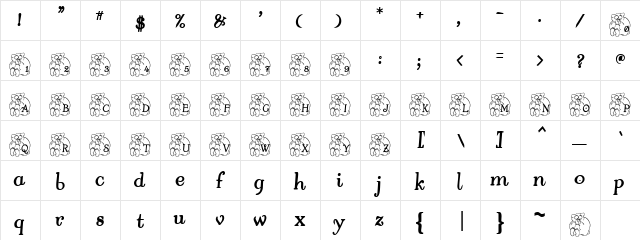
BearlyThinking Regular Font Preview
BearlyThinking Regular
Design Context for BearlyThinking Typeface
BearlyThinking is a composed and adaptable typeface that performs quietly and consistently across a wide range of design contexts. Its slender proportions lend an understated elegance to any composition.